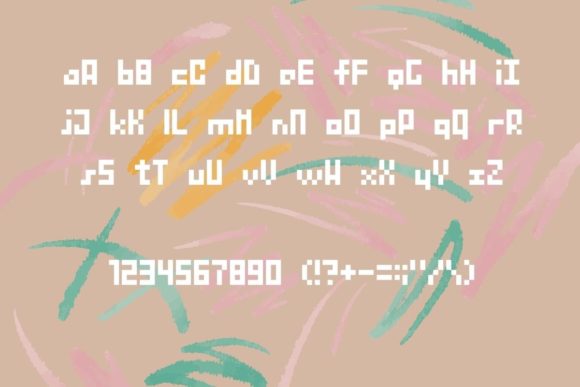
Reviving the Pixelated Past: A Designer’s Dream
Do you ever get that nostalgic rush when you stumble upon an old video game or a retro TV commercial? The vibrant colors, the pixelated graphics, and the infectious energy of a bygone era – it’s enough to transport us back to a time when creativity knew no bounds.
That’s exactly what inspired the creation of the Bitnov33 Font, a stunning pixelated display font that embodies the spirit of 1990s graphics. Designed to evoke the same sense of nostalgia and wonder, this font is perfect for your next gaming or retro-related design project. Whether you’re working on a logo, a poster, or a website, the Bitnov33 Font is sure to add a touch of retro flair to your work.
As a designer, you know how valuable it is to have the right tools at your disposal. The Bitnov33 Font is more than just a font – it’s a key to unlocking a world of creative possibilities. With its unique blend of nostalgia and modernity, this font is sure to become a staple in your design arsenal.
- Unique Characteristics: The font features a unique blend of modern and retro elements, with a distinctive aesthetic that is both futuristic and nostalgic.
Bitnov33 Font Review
Overall, I’d say Bitnov33 Font is an interesting addition to the digital design world. It’s got a unique aesthetic that’s sure to turn heads.
What works well: ✨ I love the bold, playful feel of this font. It’s perfect for titles, headings, or any text that needs a bit of extra flair. The font’s quirky charm is infectious, and it’s sure to add a touch of personality to any project. ✨ The font also works well in digital applications, where its bold lines and geometric shapes really shine.
However, I do have some concerns: ⚠️ The font’s consistency can be a bit hit-or-miss. Some letters feel a bit wonky or irregular, which can be jarring when reading large blocks of text. Additionally, the font’s boldness can sometimes make it difficult to read at smaller sizes.
Overall impression: Bitnov33 Font is a fun, attention-grabbing font that’s perfect for projects that need a bit of extra pizzazz. However, its limitations should be taken into consideration, especially when working with large blocks of text or at smaller sizes.
Recommendation: Use Bitnov33 Font sparingly, and be mindful of its limitations. It’s perfect for titles, headings, or short bursts of text where its unique charm can really shine.
- Unique, bold aesthetic
- Perfect for titles, headings, or short bursts of text
- Works well in digital applications
- Can be inconsistent in its design
- Difficult to read at smaller sizes
Tips for Getting the Most Out of Bitnov33 Font
Bitnov33 Font is a unique and stylish font that can add a touch of elegance to your designs. To get the most out of it, try using it in combination with bold and italic styles to create visual interest. You can also experiment with different font sizes and colors to create a cohesive look.
Bitnov33 Font is perfect for creating eye-catching headings, titles, and quotes. It’s also great for adding a touch of sophistication to your logos, business cards, and other marketing materials. With its unique style and versatility, Bitnov33 Font is sure to make your designs stand out.